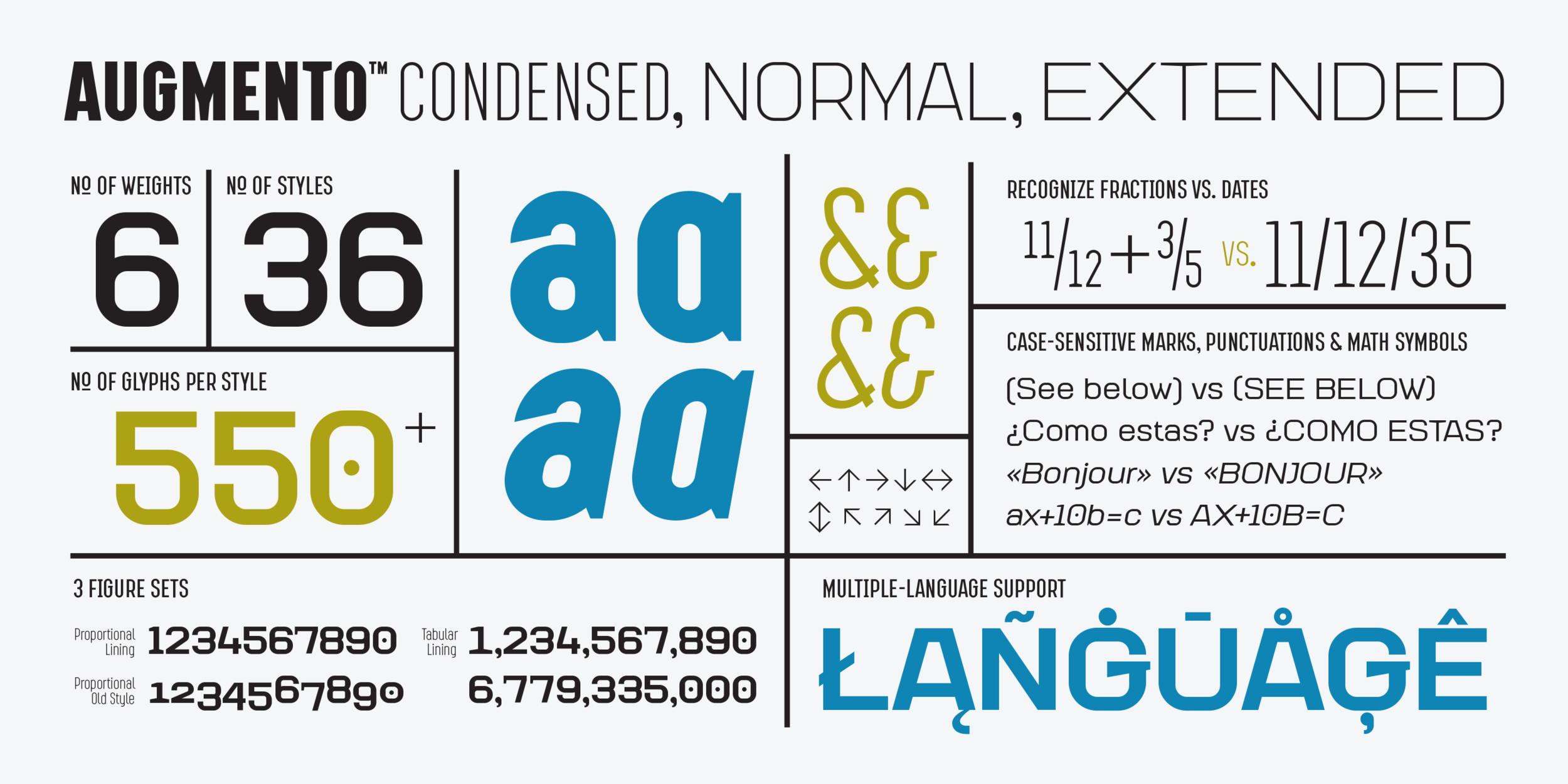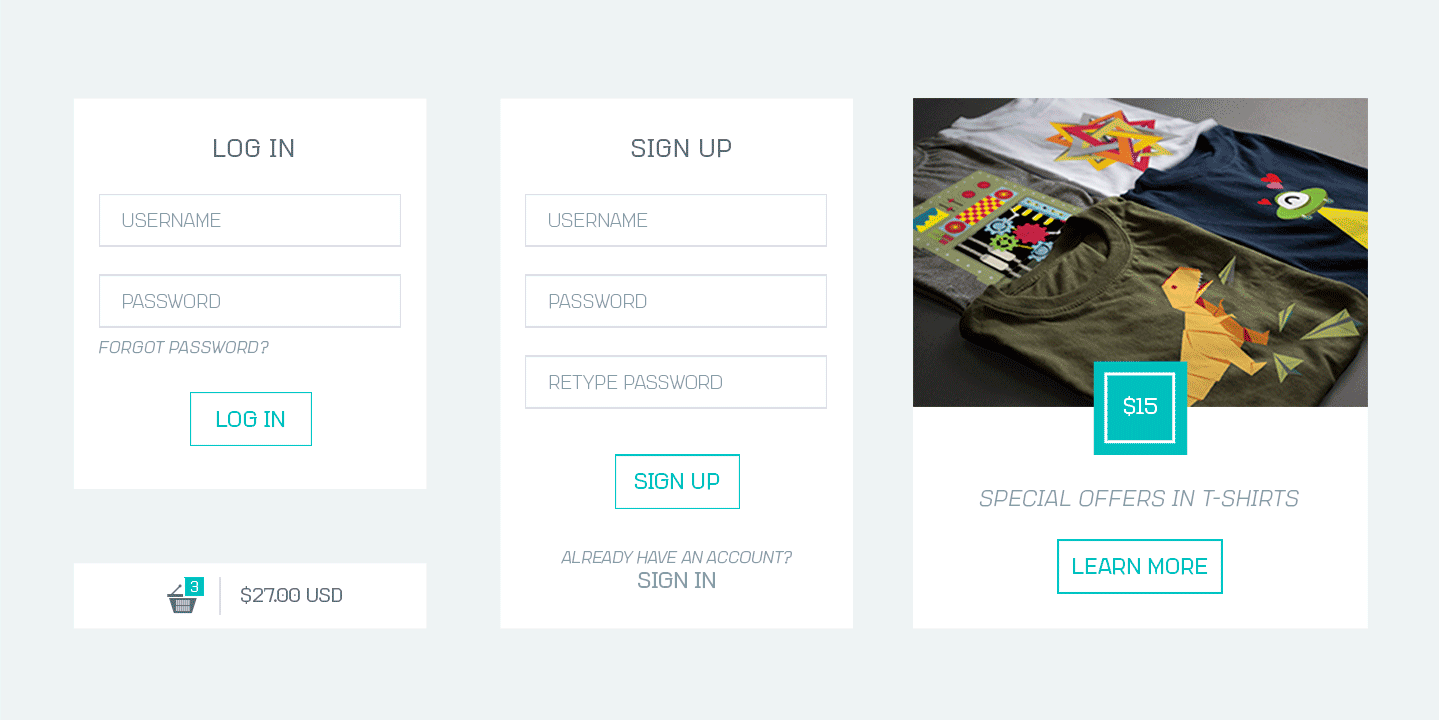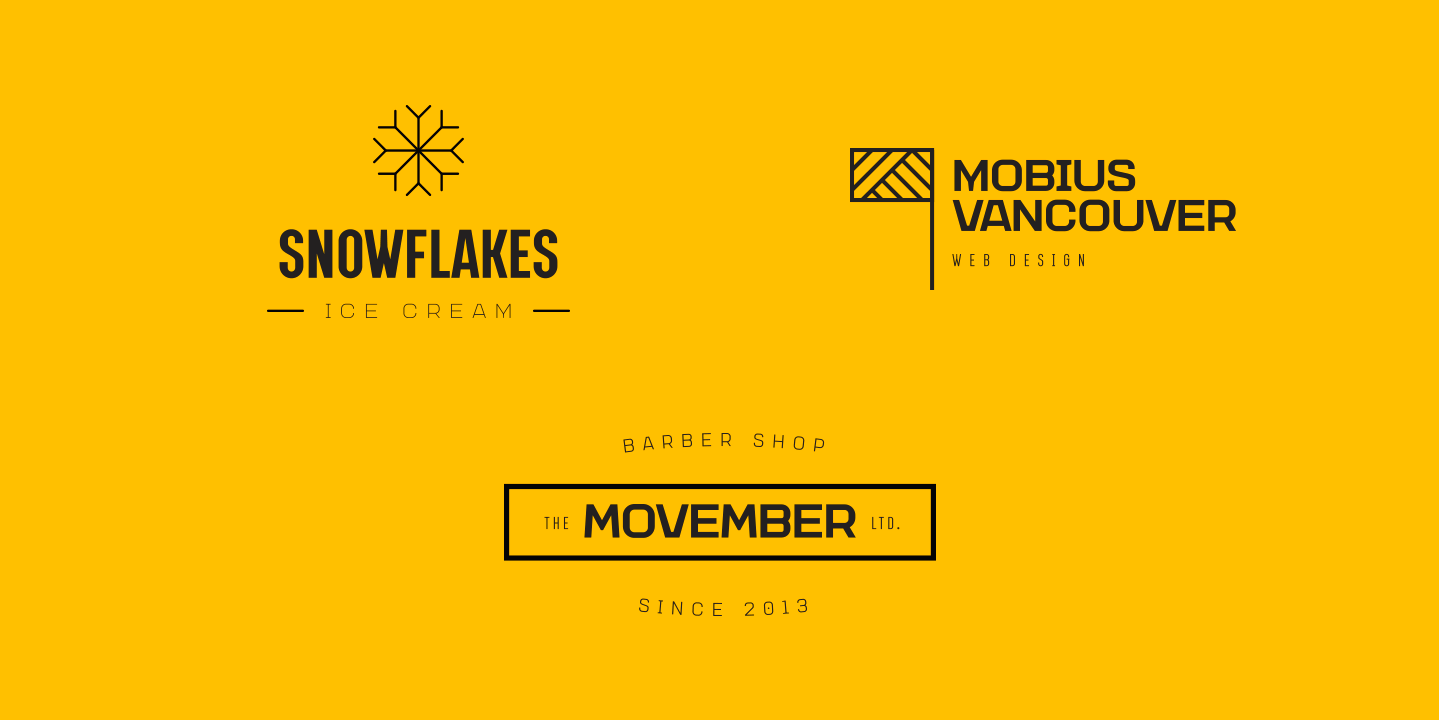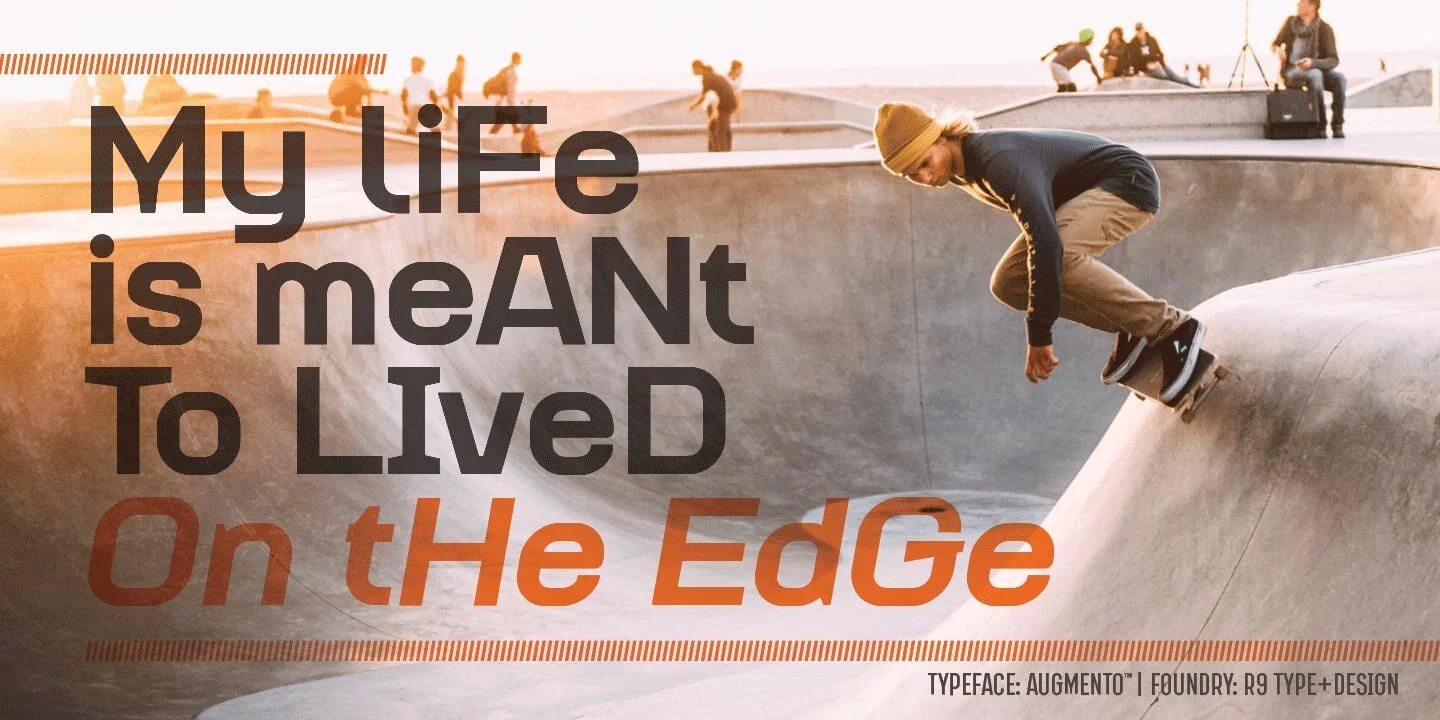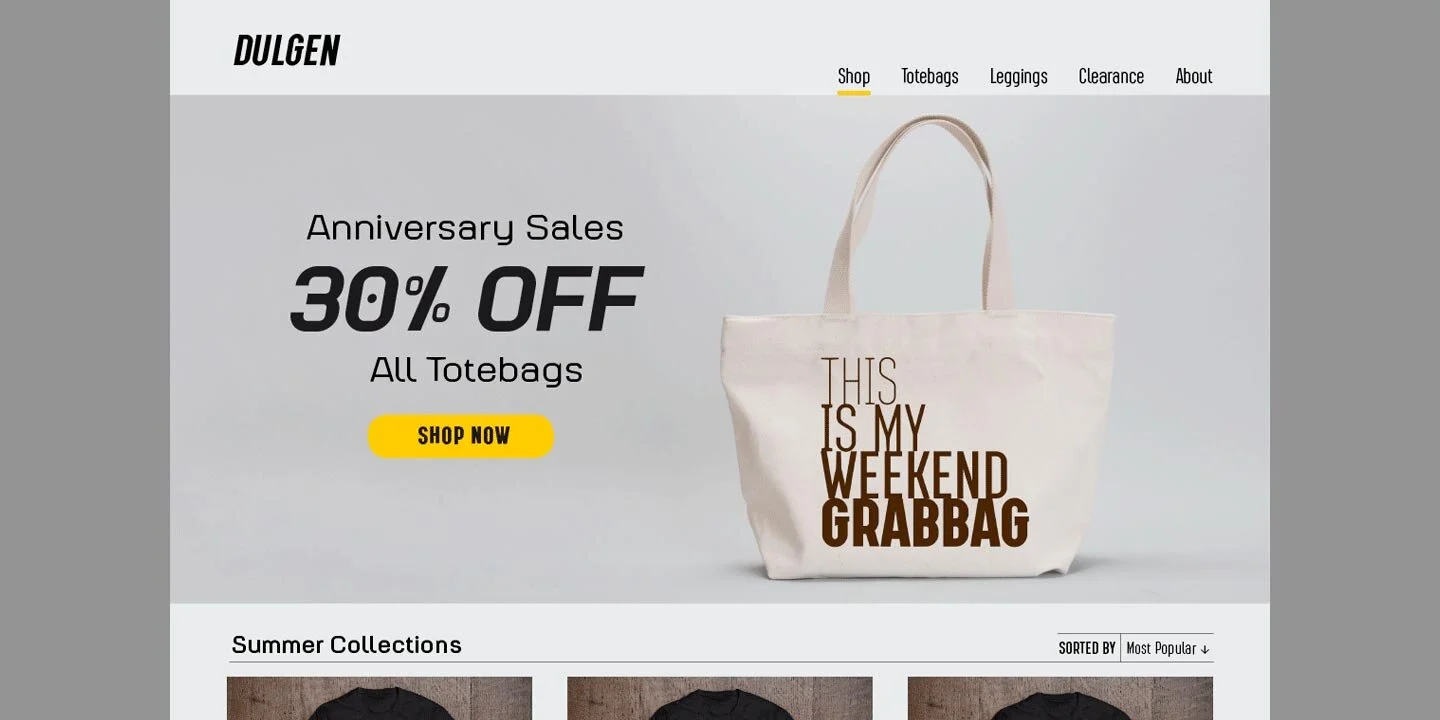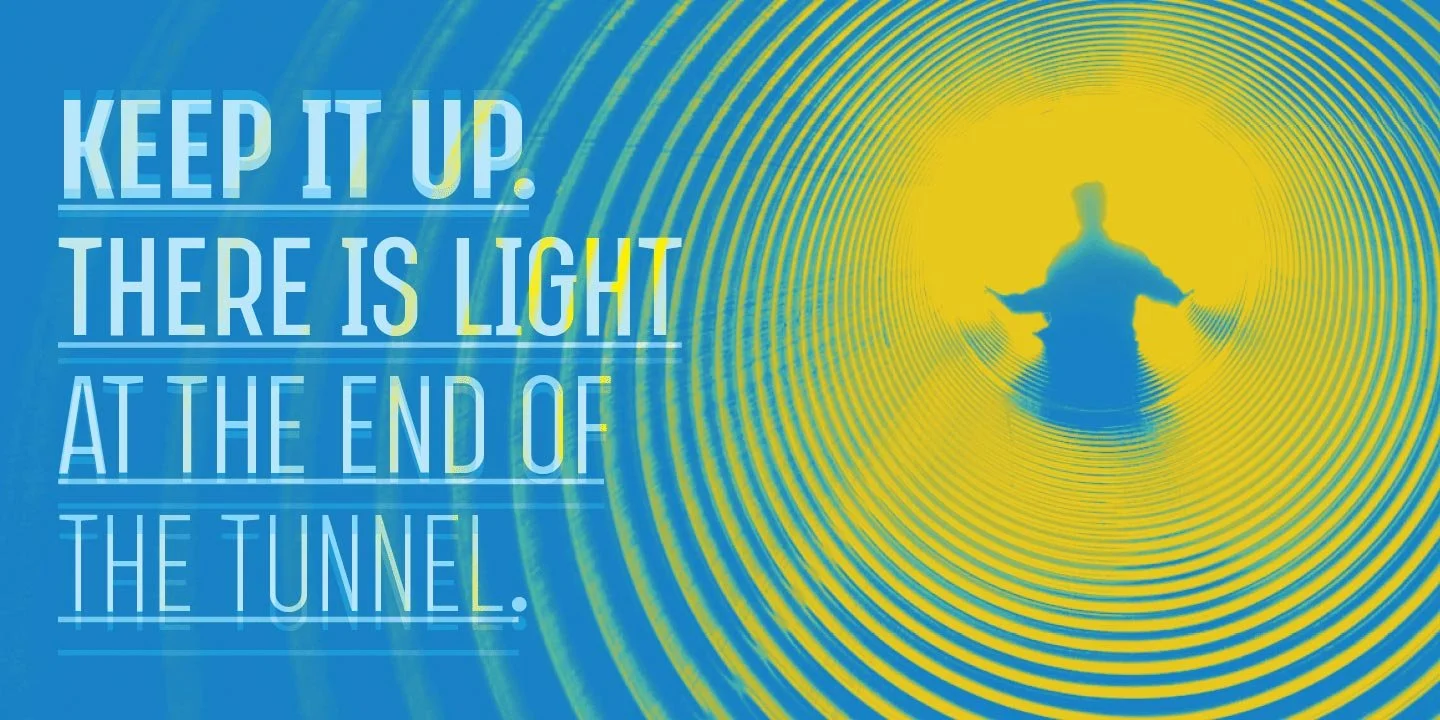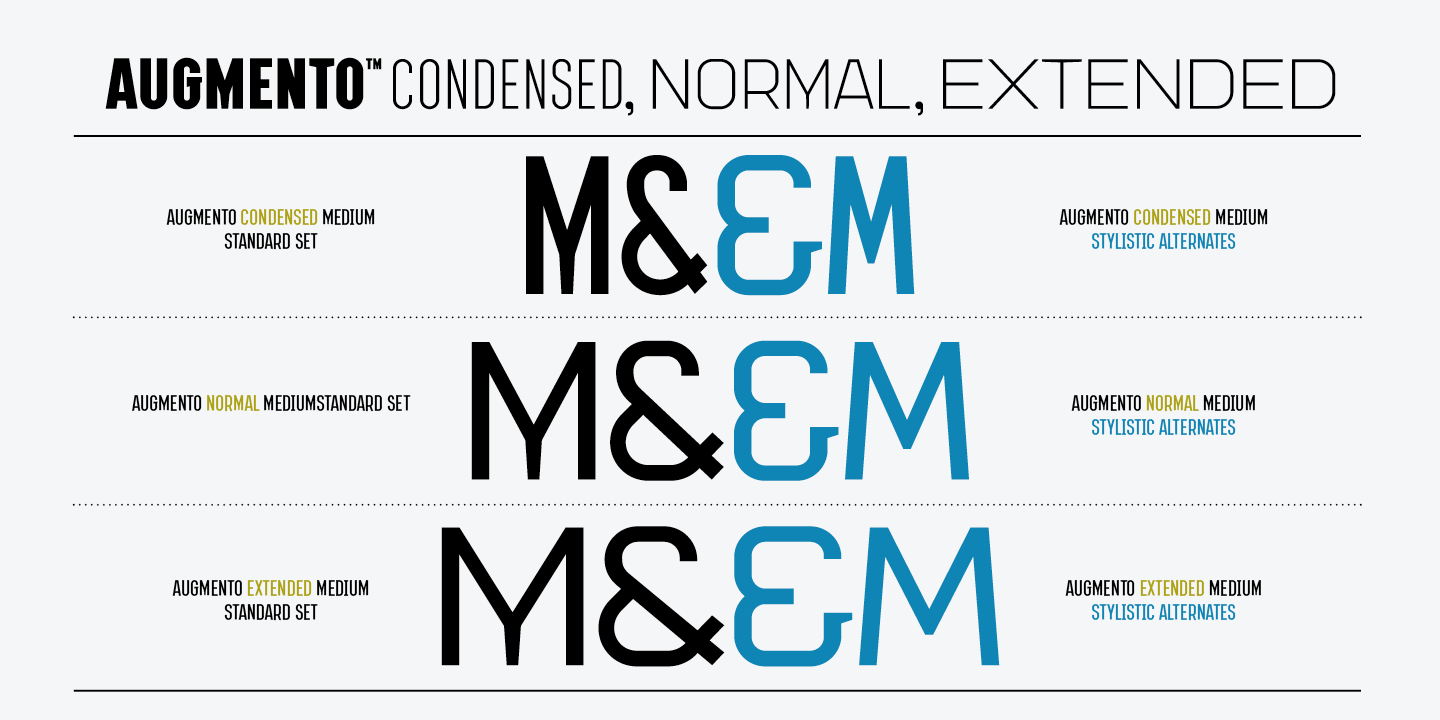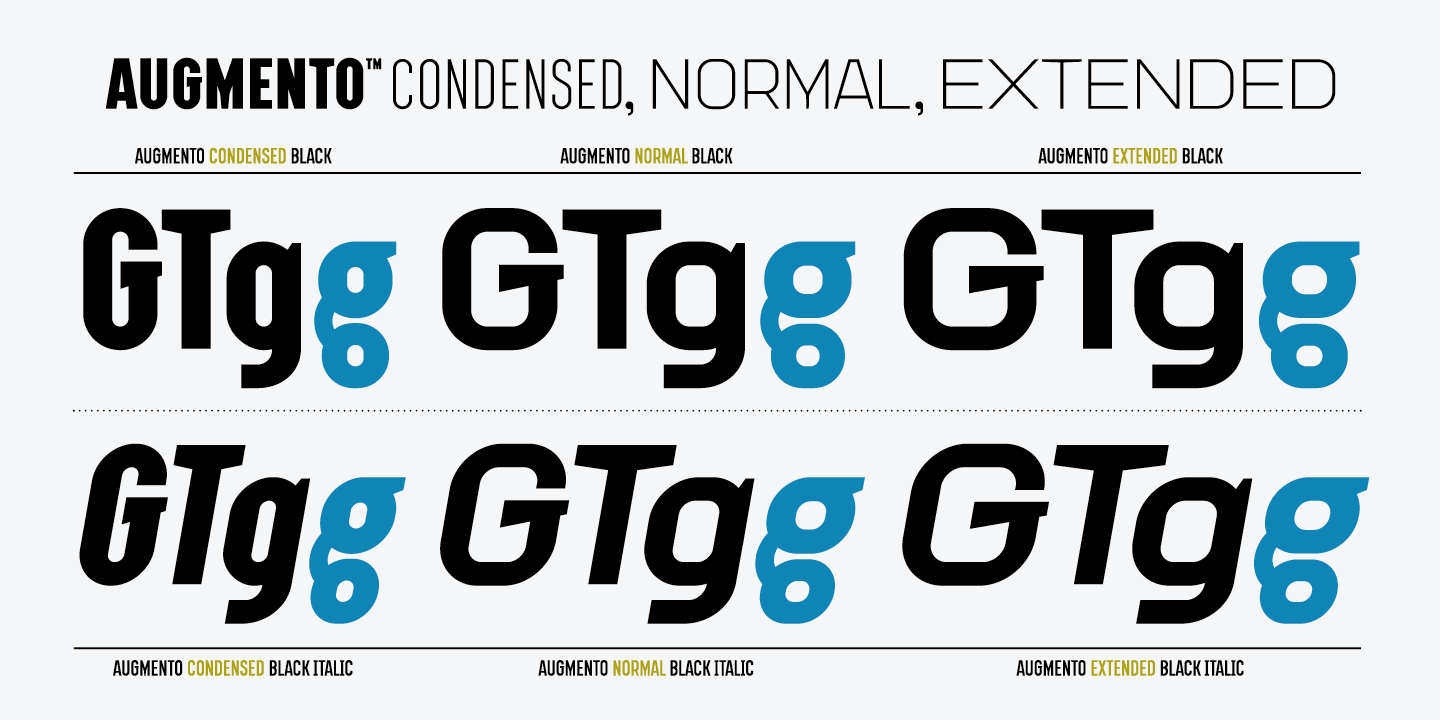
Augmento™ Display Sans Serif: Where Corporate Meets Creative
Augmento™ is a large contemporary display font family from R9 Type+Design. It's designed right smack on the sweet spot between formal and casual, making it an incredibly versatile typeface. The font's unique rounded rectangular structure is its standout feature, giving it a modern and trustworthy geometric look. Its quirky stems then add a fun, playful feel, making it an excellent choice for projects where you need to be both professional and approachable
Hero image of Augmento, a large and versatile display sans serif typeface, showcasing its heavy, bold weight and high-impact style suitable for major headlines, advertising, and branding.
Augmento font features overview detailing its expansive family of 36 styles across Condensed, Normal, and Extended widths, 550+ glyphs per style, 3 figure sets, and OpenType features like case-sensitive forms and smart fractions.
Augmento: The Complete Toolkit for Your Designs
The completed Augmento family is a powerful toolkit for your creative projects, including posters, packaging, editorials, and web design. With its wide range of features, you can make your designs sing as loud (or soft) as you'd like.
• 3 Widths (Condensed, Normal, and Extended)
• 6 Weights (Thin, Light, Regular, Medium, Bold, and Black)
• 36 Styles
• 550+ glyphs each
Glyph chart showing Augmento's partial character set in Roman and Italic, highlighting alternate glyphs in blue. This demonstrates the OpenType stylistic alternates feature for numbers, fractions, and selected letters.
Augmento™ also comes packed with OpenType features such as:
• Stylistic alternates
• Case-sensitive punctuations
• Date vs fraction recognitions
• 3 sets of figures (Proportional Lining, Proportional Oldstyle, and Tabular Lining)
• Augmento supports most Latin-based languages, ensuring it's a versatile solution for a wide variety of applications.
Augmento Black and Black Italic weights displayed across Condensed, Normal, and Extended widths, showcasing the full versatility of the family and highlighting the alternate stylistic glyph for the lowercase 'g' in blue.
Augmento Medium weight displayed across Condensed, Normal, and Extended widths, showcasing the different forms of the 'M' and the Ampersand. Blue type indicates the stylistic alternate glyphs for detailed typographic control.
Augmento Light and Light Italic weights displayed across Condensed, Normal, and Extended widths, showcasing the full three-width family and highlighting the stylistic alternate glyph for the lowercase 'f' in blue.
Augmento™ Type Specimen
Discover the immense versatility of the Augmento family across its 36 styles. From the tight Condensed to the expansive Extended widths, Augmento offers unmatched control for any design project. Below, you'll see how this geometric display sans serif utilizes OpenType features like stylistic alternates and multiple figure sets to deliver consistency at every size and scale. For a more in-depth look at all features and stylistic sets, download the Augmento Type Specimens PDF below.
Augmento type specimen demonstrating extensive multi-language support across different weights and widths, confirming full coverage of Western European diacritics for German, Spanish, and French.
In-situ mock-up of four large, yellow, high-impact Augmento posters on a concrete wall, demonstrating the font's clear visibility and use case as a bold, modern display sans serif for advertising and strong branding.
Outdoor advertisement mock-up showing Augmento used as a headline. This image demonstrates the meticulous kerning applied to the typeface, which ensures perfect spacing and visual quality even in demanding mixed-case typesetting.
This specimen demonstrates the high-impact use of Augmento as a display headline. Augmento’s standard, meticulous kerning is applied to the font to ensure visual harmony, even in challenging mixed-case typesetting (such as lowercase followed by an uppercase). This level of built-in precision is provided across the entire Augmento family.
Magazine editorial spread mock-up demonstrating Augmento's versatility, featuring the font in a massive display headline ('IT'S TIME TO GO') and using lighter weights for the detailed body copy.
Mock-up showing Augmento used for brand identity on white business cards, featuring a prominent outline/inline style and showcasing the single-story alternate 'a' glyph used in the logo design.
Large-scale typography design spread featuring Augmento in a bold, stacked, all-caps headline, demonstrating its high-impact visual style and utility for motivational messaging and display advertising.
Two hanging Augmento specimen posters summarizing the font family, highlighting its 36 styles, 550+ glyphs, multiple figure sets, multi-language support, and powerful use as a display sans serif.